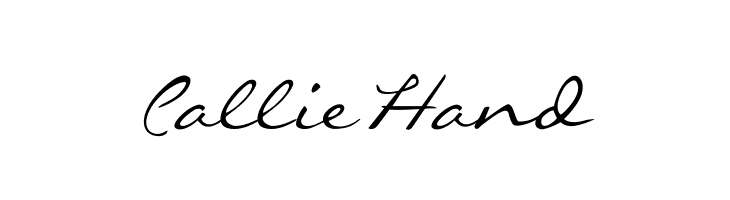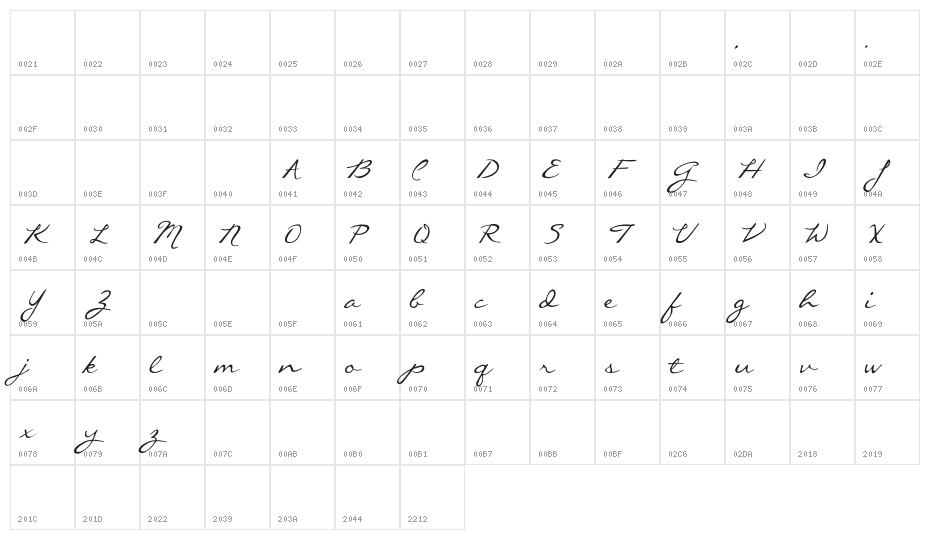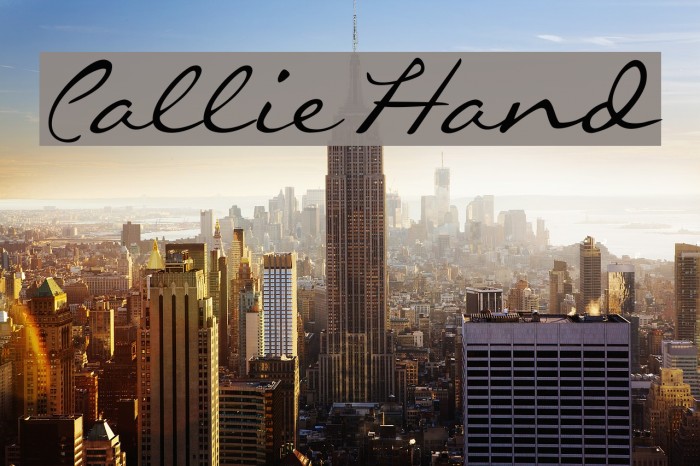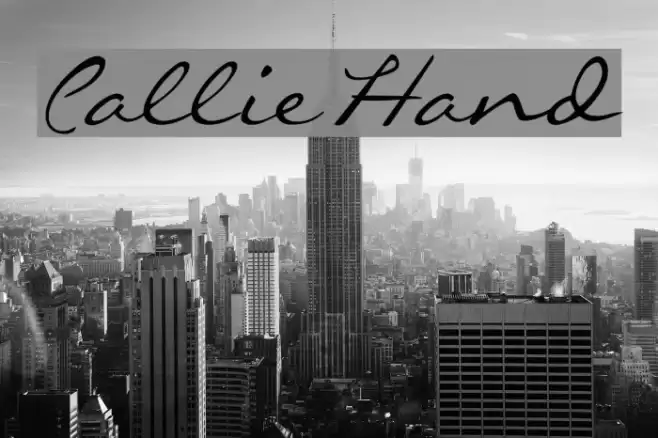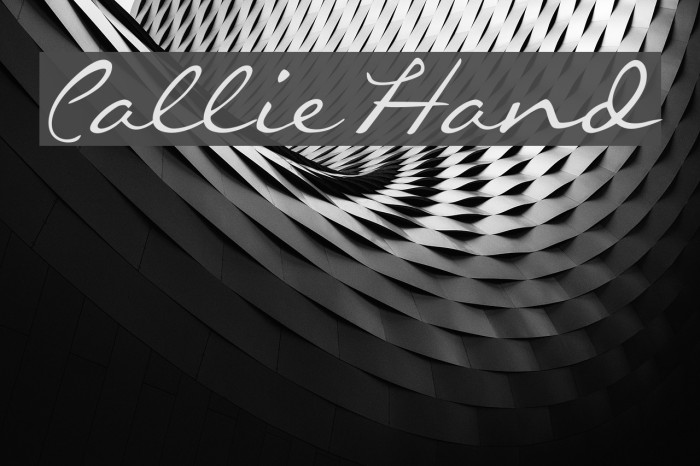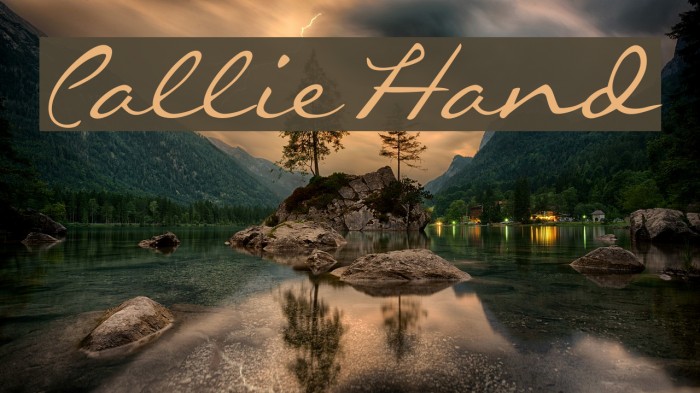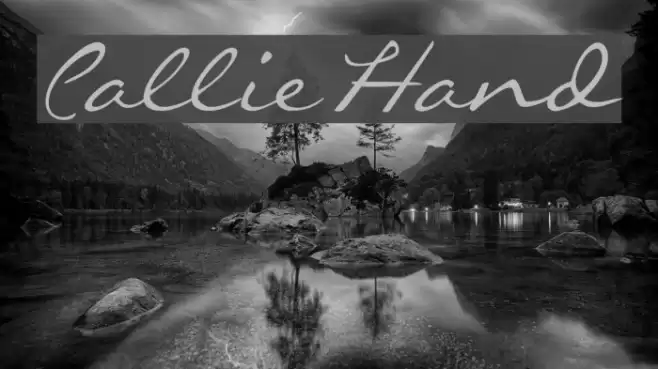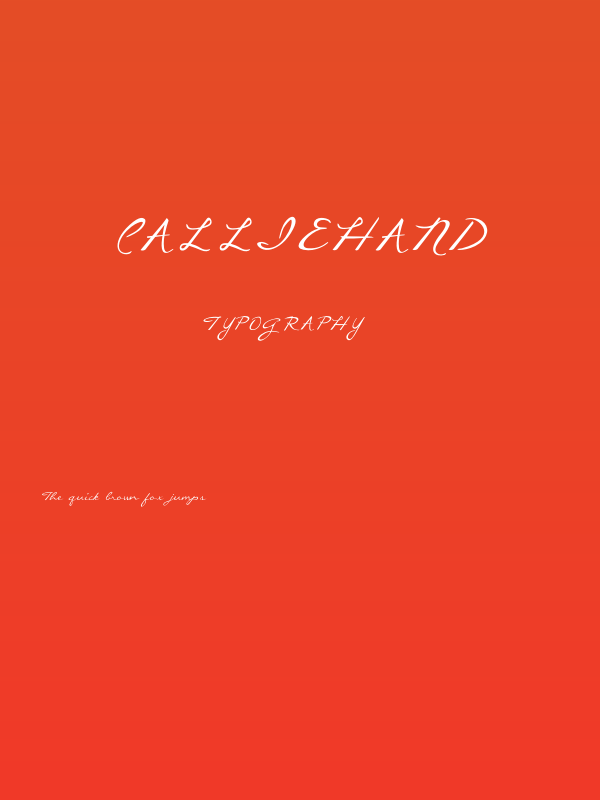
CallieHand Font
CallieHand Description
This elegant script font features fluid, cursive strokes that mimic the natural flow of handwriting. The uppercase letters are gracefully elongated with sweeping curves, while the lowercase letters maintain a consistent, flowing baseline. The font exudes a sense of sophistication and charm, making it ideal for formal invitations, personal branding, and artistic projects. Its delicate lines and smooth transitions between characters create a harmonious and visually pleasing appearance. The font's style is reminiscent of traditional calligraphy, yet it maintains a modern touch, making it versatile for various design needs.
| Proposed Projects | Ideal for wedding invitations, greeting cards, personal branding, and artistic projects. |